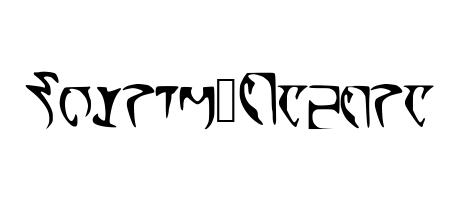
Skyrim_Daedra
Skyrim_Daedra: Ancient runes whisper secrets of Oblivion. Jagged strokes and sharp angles evoke a primal power, like the etched sigils of Daedric Princes. This font breathes dark fantasy, ideal for titles, spells, or anything needing a touch of demonic elegance. Its unsettling beauty captures the essence of Tamriel''s shadowed realms.